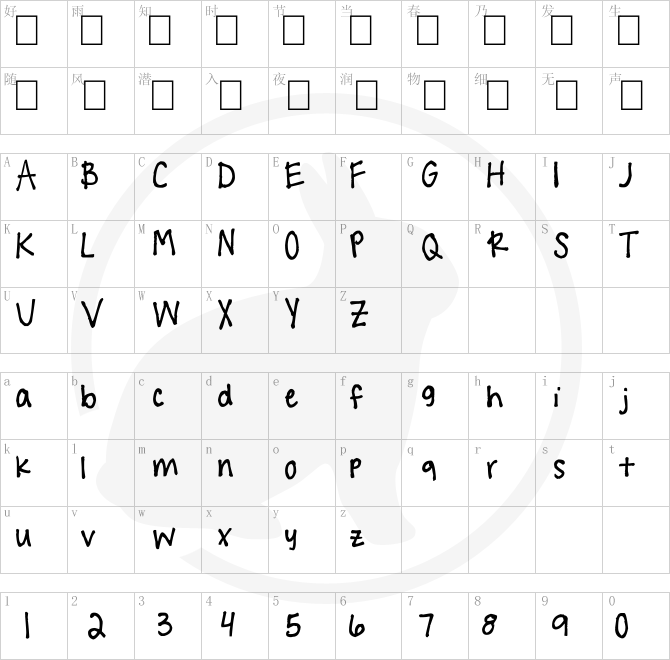
- Font Name:!!! Handwritingg <3
!!!-Handwritingg-3.ttf is a very beautiful artistic font, !!!-Handwritingg-3.ttf is widely used in the design and printing of various books and pictures,!!!-Handwritingg-3.ttf has a strong visual impact,!!!-Handwritingg-3.ttf is a commonly used font in newspapers, magazines and books, and is used in posters, e-commerce Poster design, store design, logo design, font design and other fields.!!!-Handwritingg-3.